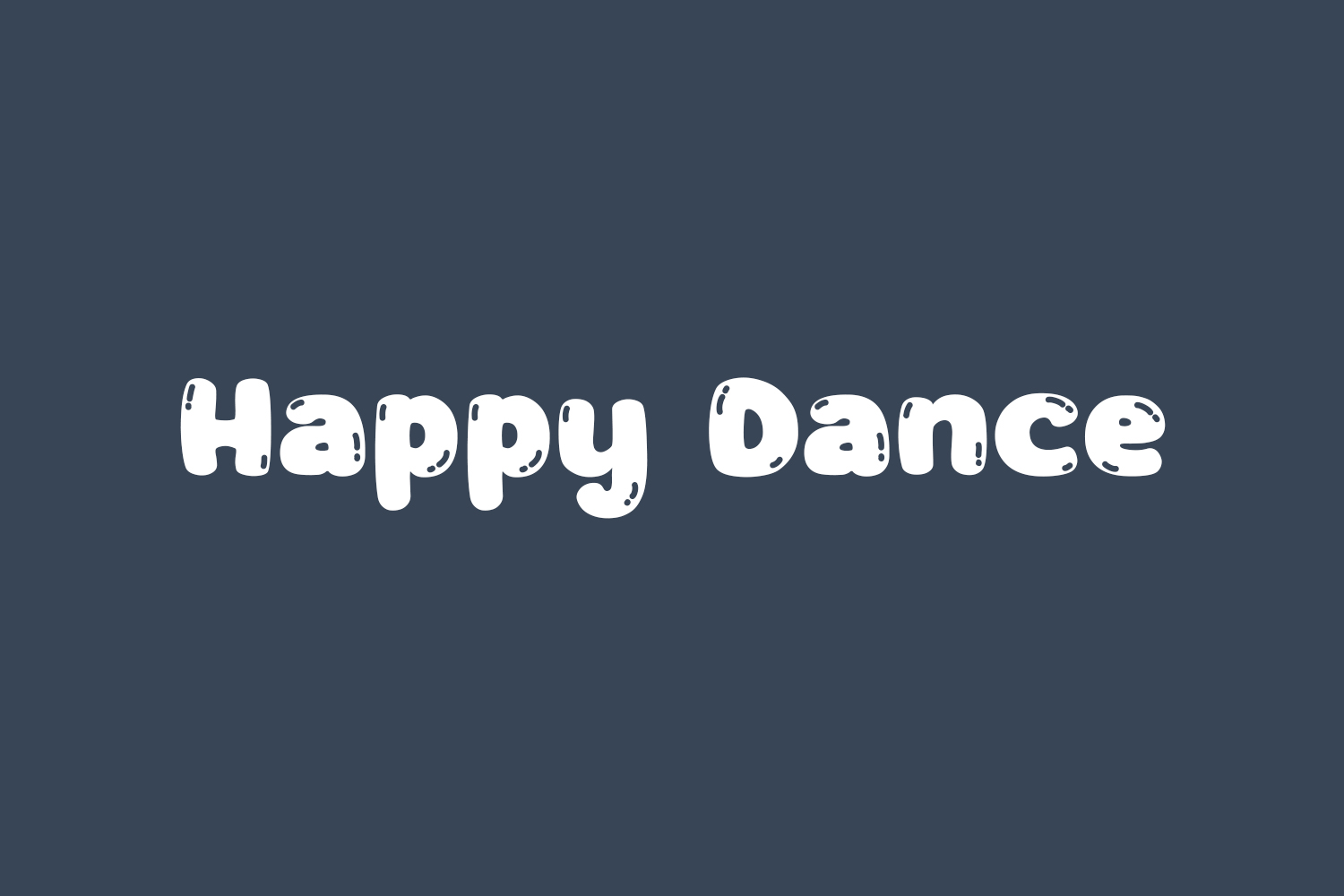
Happy Dance Free Font exudes a bold personality, making it an ideal selection for vibrant display projects. Its versatility extends to various applications, including branding, logos, candy packaging, and food packages. Happy Dance, with its lively and distinctive aesthetics, brings a burst of brightness and excitement to any design. Happy Dance Free Font is free for personal use only. Please purchase the full version for commercial use.